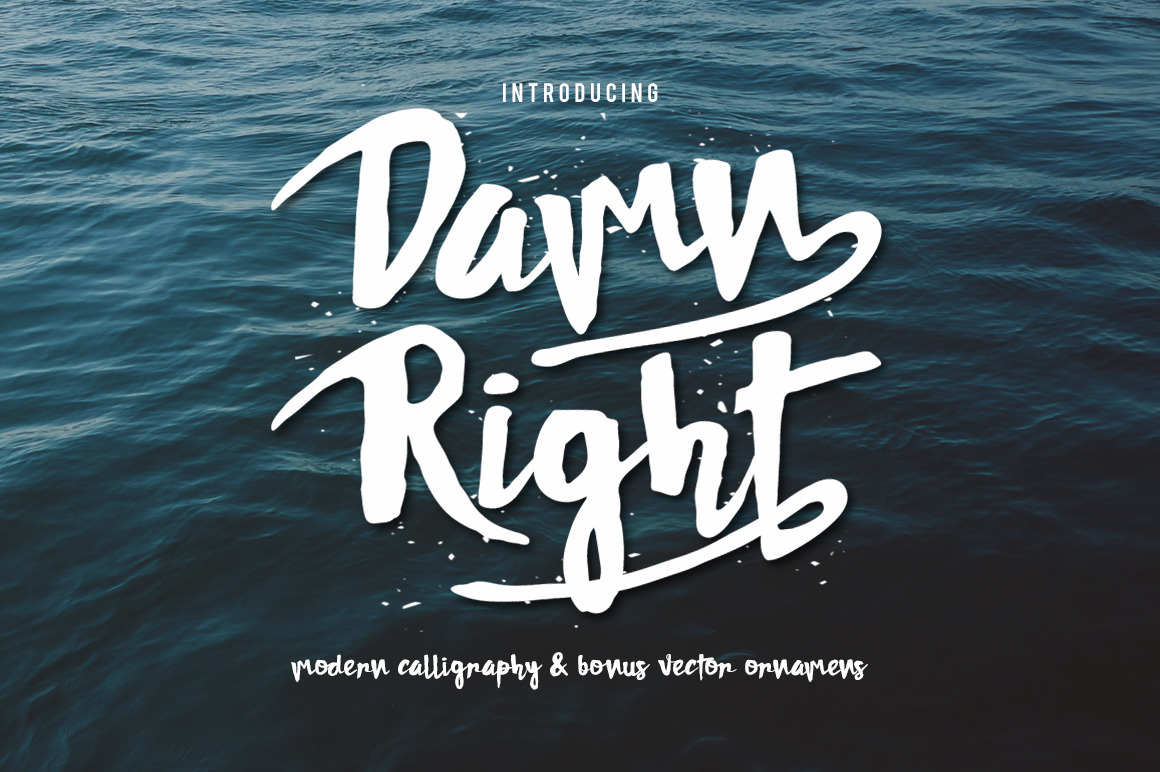
DAMNRIGHT Typeface
Hello... hopefully DAMNRIGHT Typeface can make it easier to convey the message in your design. Use for awesome display, labeling, clothing, movie sceen, party poster, movie title, gigs, album covers, logos, and much more.